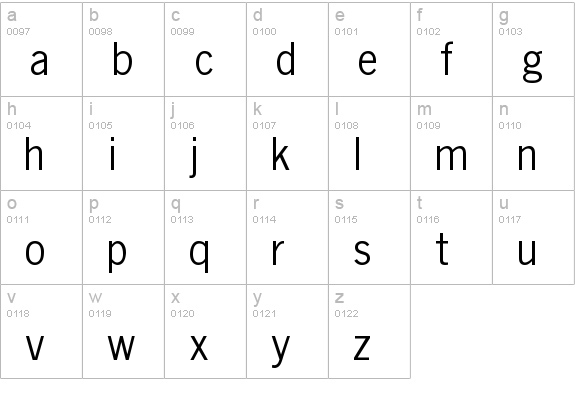
News Regular is the standard, neutral variant in the News typeface family \xE2\x80\x94 well suited to general body text, paragraphs, and standard typographic work.
News Regular font is a classic and timeless typeface that exudes professionalism and sophistication. With its clean lines and elegant design, this font is perfect for a wide range of projects, from newspapers and magazines to websites and advertisements. What sets News Regular font apart is not only its versatility, but also the fact that it is available for free download at FontsMarket.com. This means that you can easily access this high-quality font without any cost, making it an excellent choice for both personal and commercial use. Whether you're looking to add a touch of elegance to your next design project or simply want a reliable and stylish font for your everyday writing needs, News Regular font is sure to impress. Download it for free today and elevate your typography game to new heights.